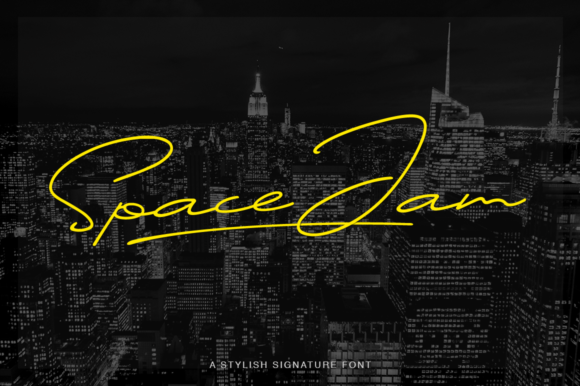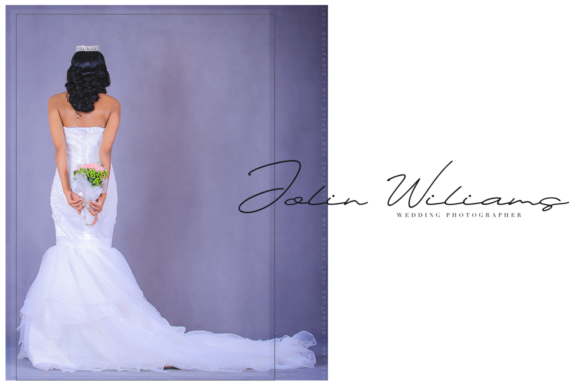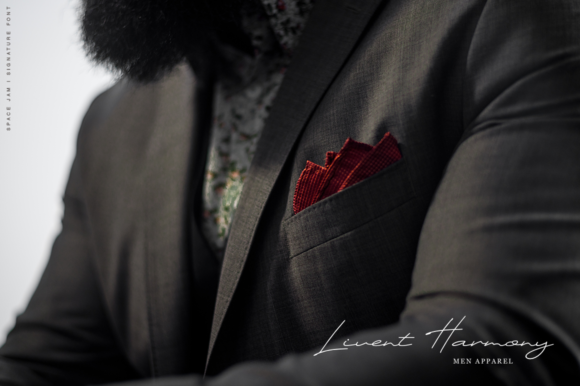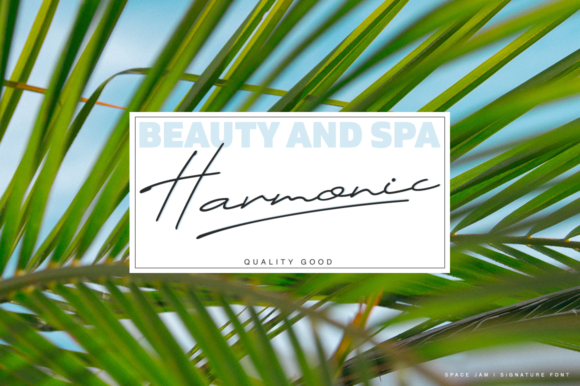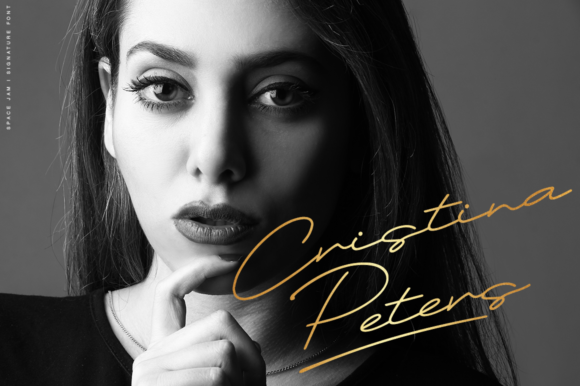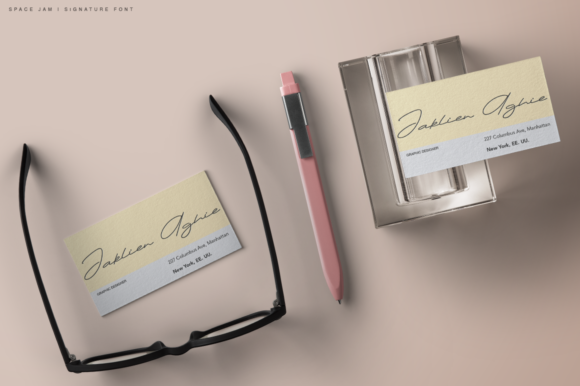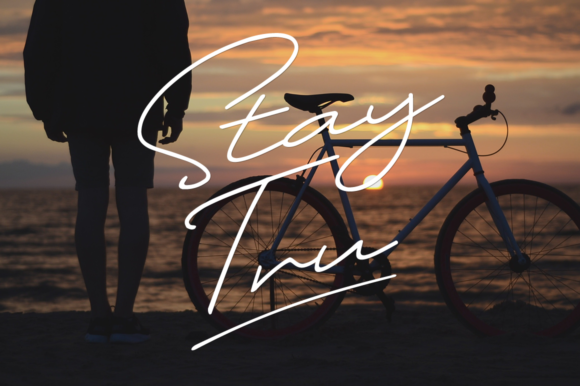
Space Jam Font
About Space Jam Font
Space Jam is a fresh handmade calligraphy font.
It’s ideal for branding and decorations for any type of project. You can use the font to create memorable designs, either for personal or business use.